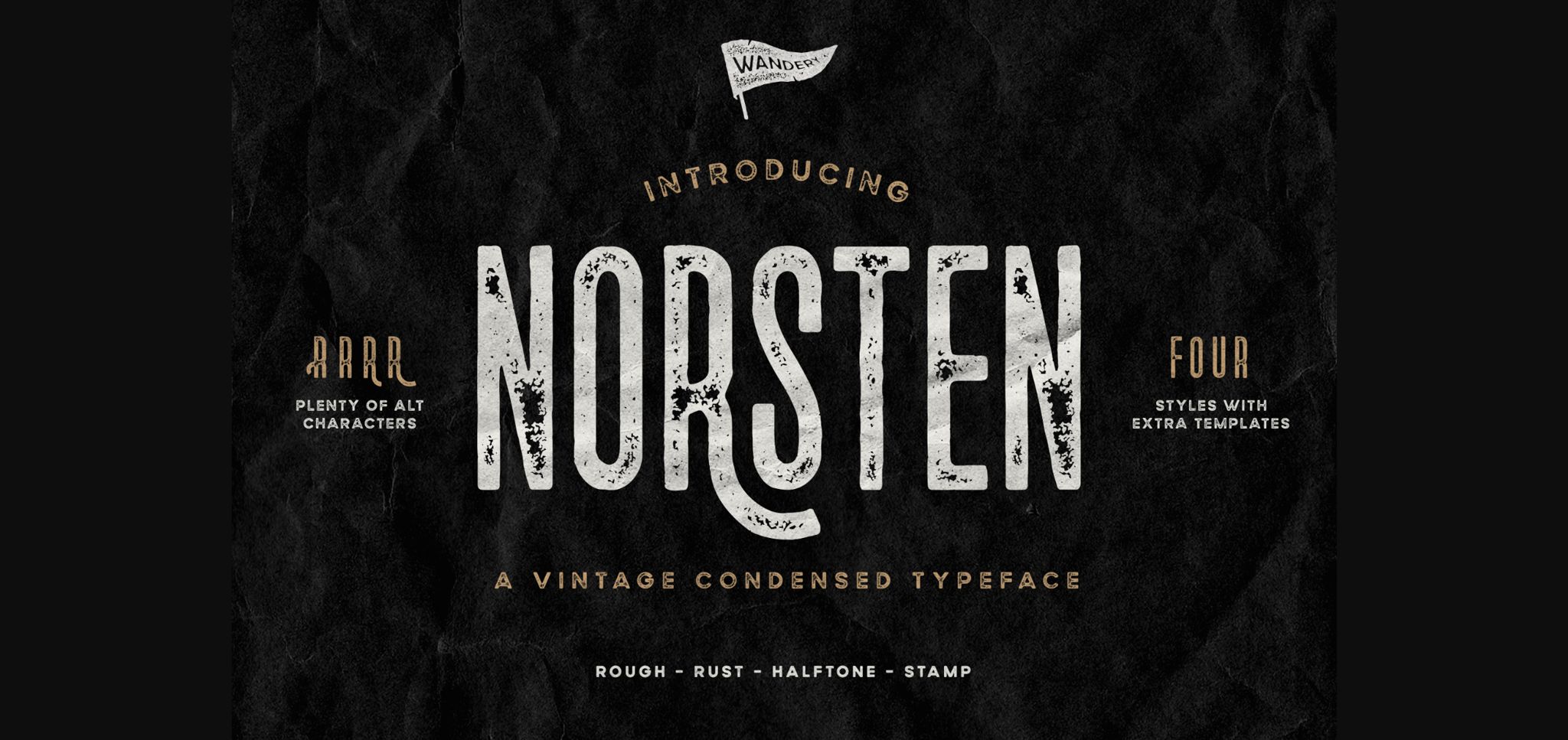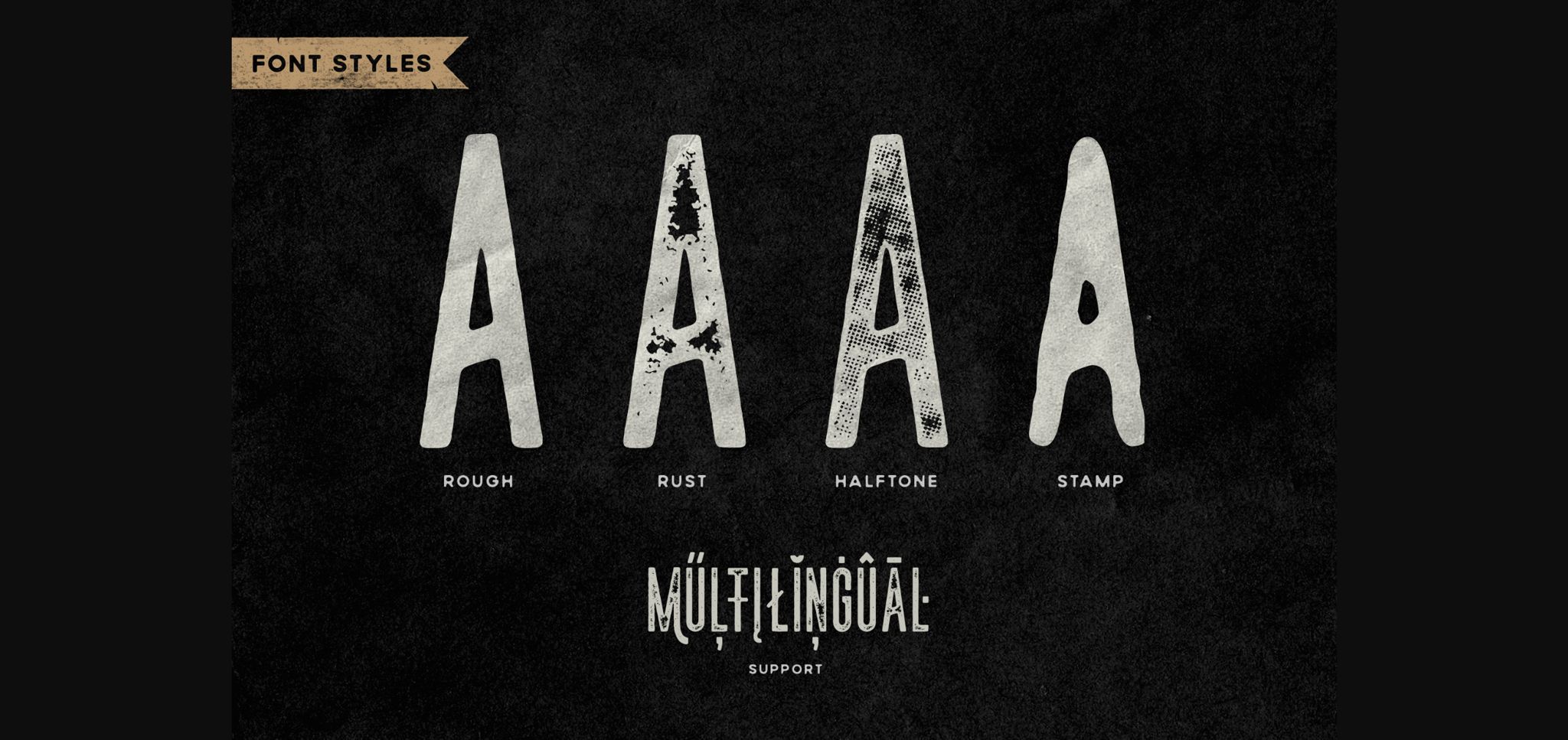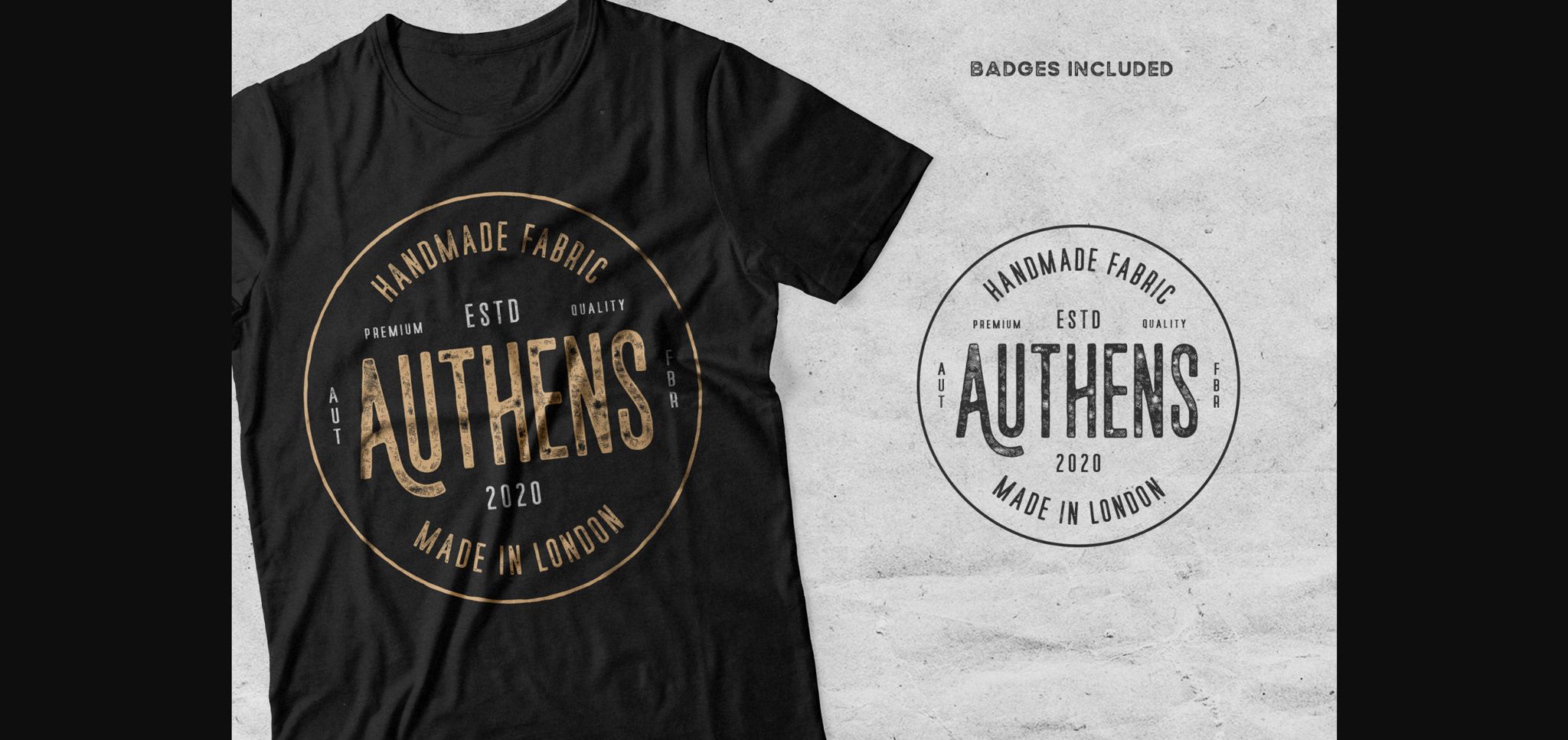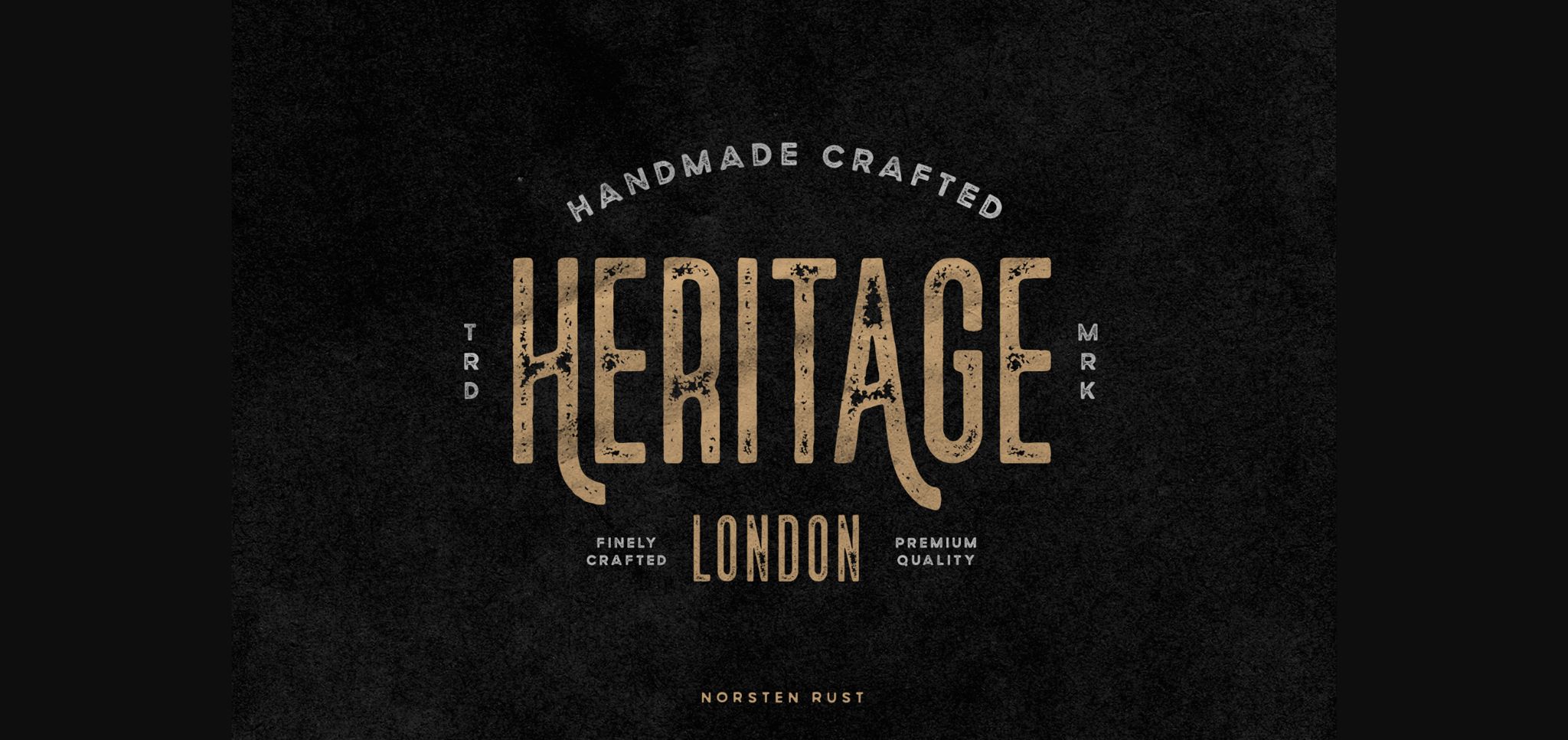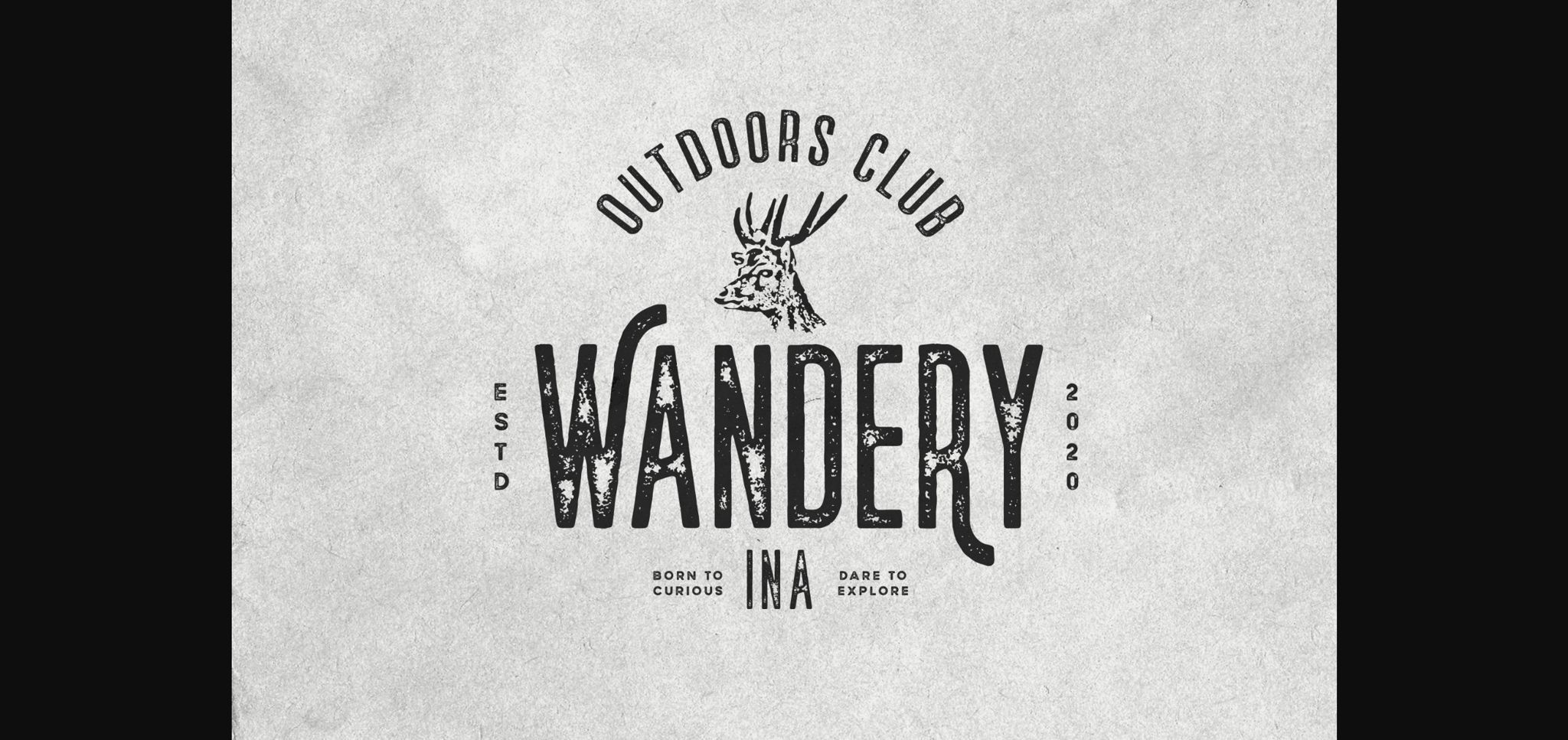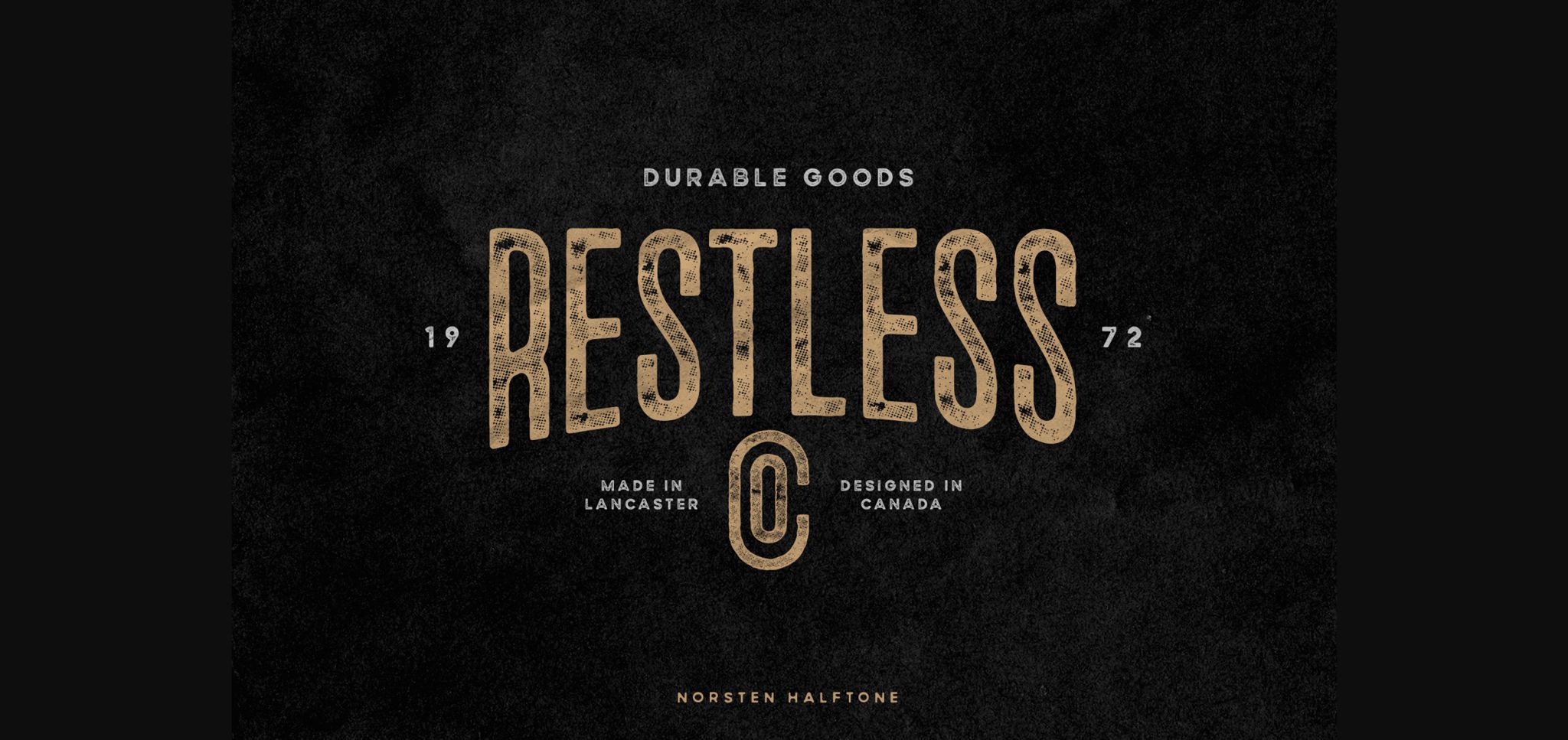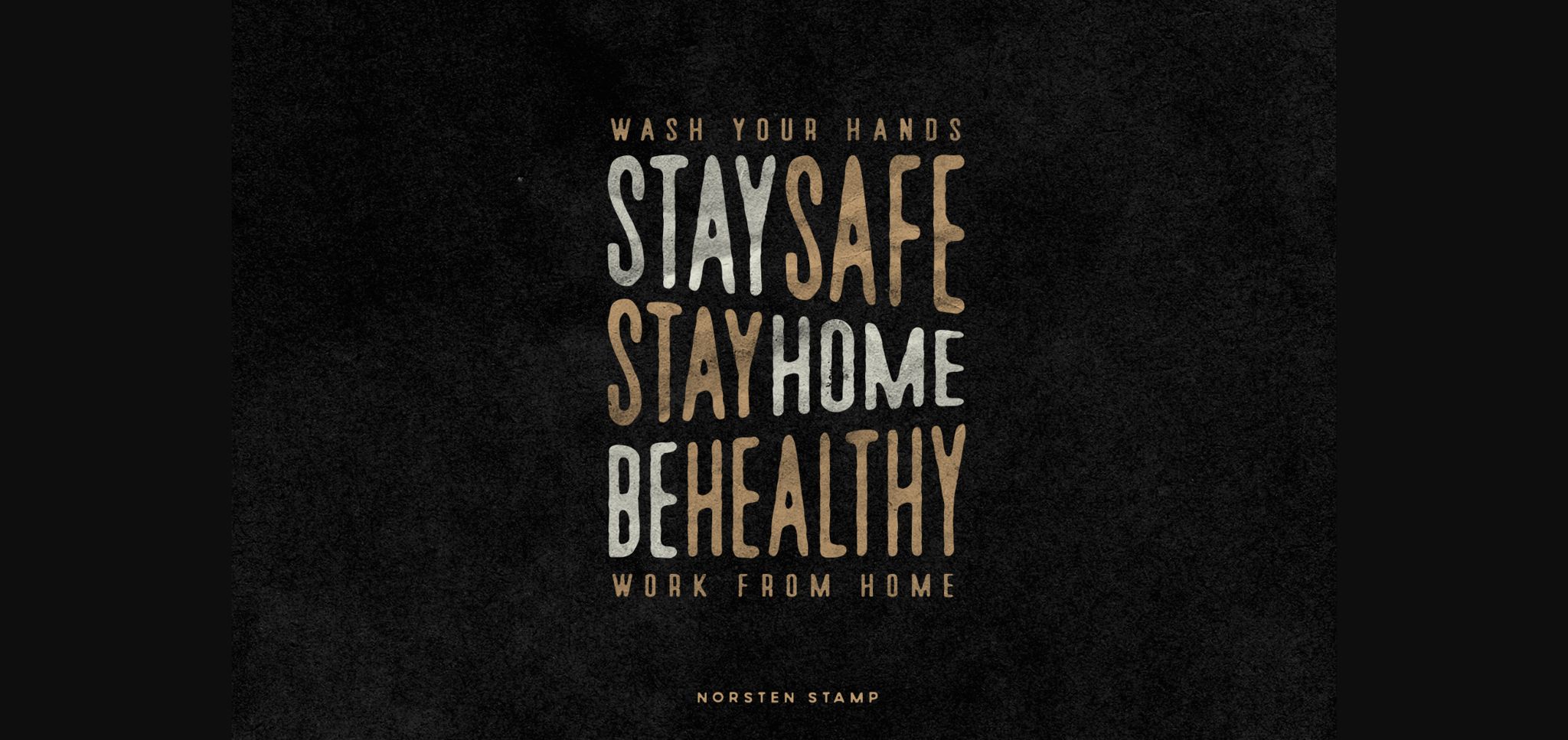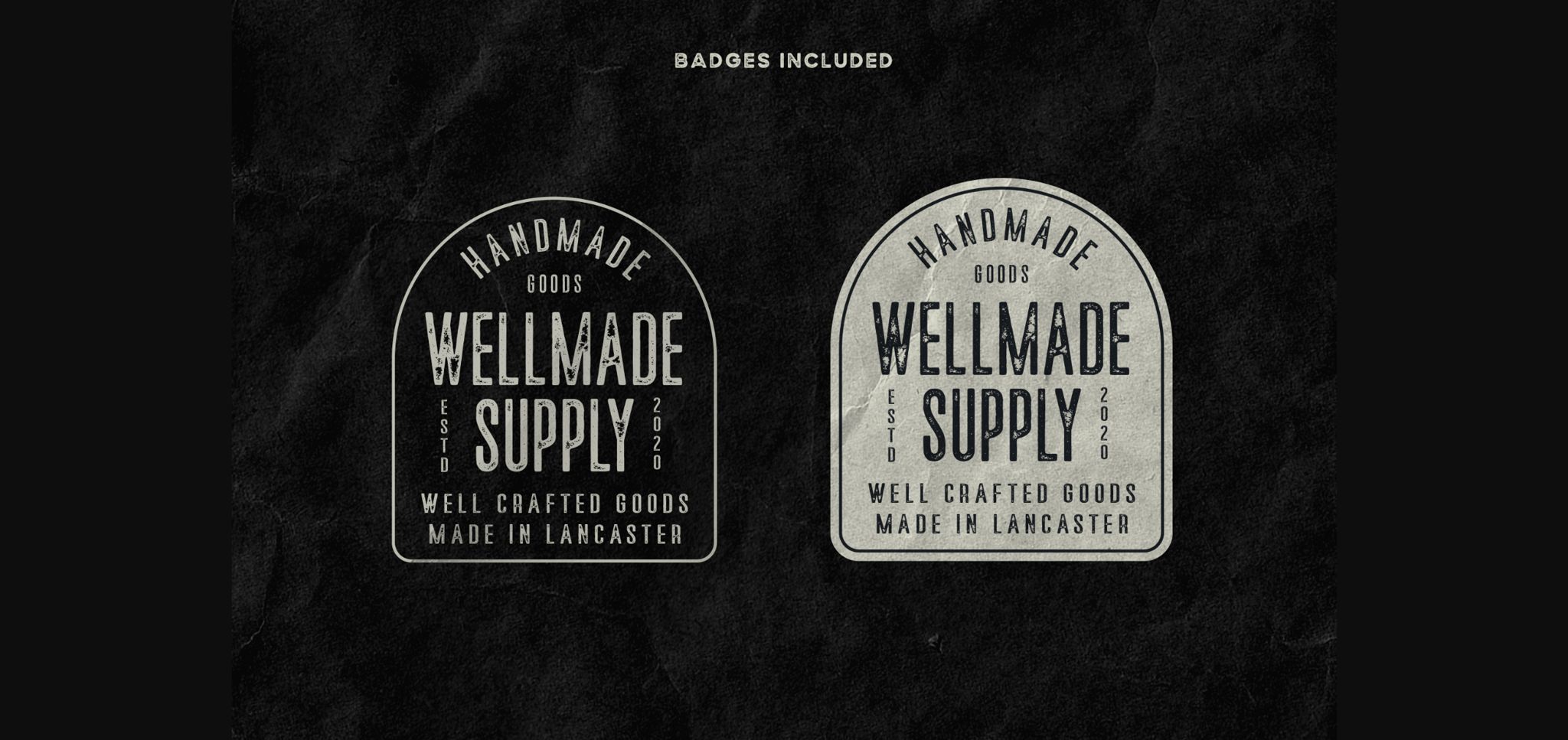
About Norsten Font
Norsten is a great condensed sans serif font. With a great vintage look, this font comes in 4 amazing styles and brings logo templates as bonus!
Use Norsten to add that special retro touch to any design idea you can think of!